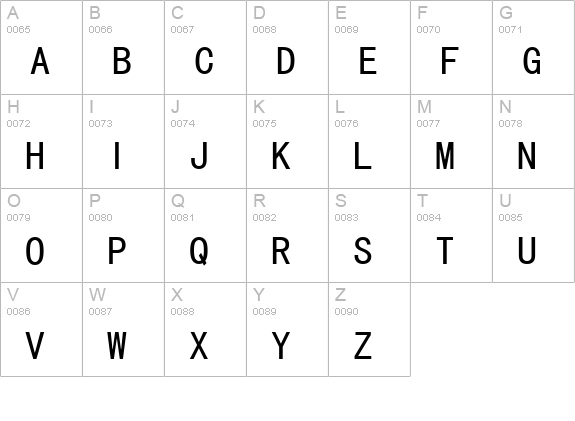
SimHei Font Details
SimHei is a stylish and modern font that will make your designs stand out from the crowd. With its clean and bold lines, this font is perfect for any project that requires a sleek and contemporary look. SimHei is not only visually appealing, but it also offers a wide range of versatility. Whether you're designing a logo, creating a website, or working on a branding project, SimHei will add a touch of sophistication and professionalism to your work. What sets SimHei apart from other fonts is that it is completely free to use. Yes, you read that right! This incredible font is freely available to download at FontsMarket.com. You no longer have to worry about breaking the bank to purchase a high-quality font – SimHei is here to save the day. Downloading SimHei is quick and easy. Simply visit FontsMarket.com, search for SimHei, and click the download button. Within seconds, you'll have this amazing font at your fingertips, ready to elevate your designs to new heights. With SimHei, you'll have endless opportunities to express your creativity. Whether you're a graphic designer, web developer, or simply someone who appreciates beautiful typography, SimHei will become your go-to font for all your projects. Don't miss out on this incredible opportunity to enhance your designs with SimHei. Download it now for free at FontsMarket.com and start creating stunning visuals that will leave a lasting impression.